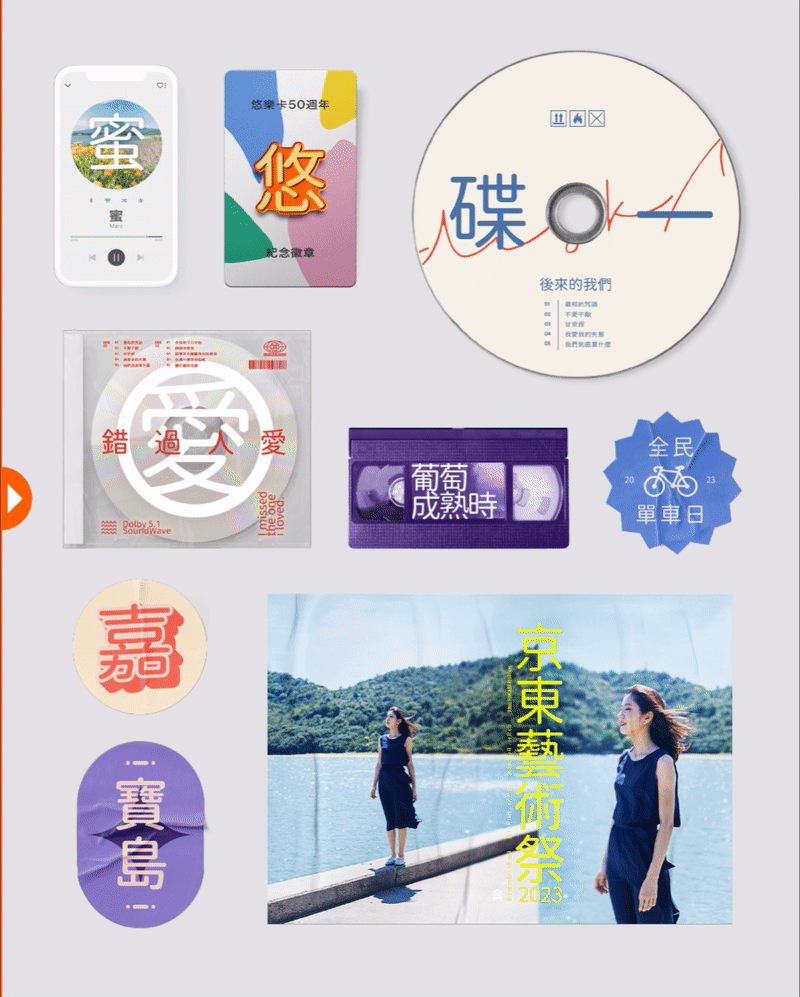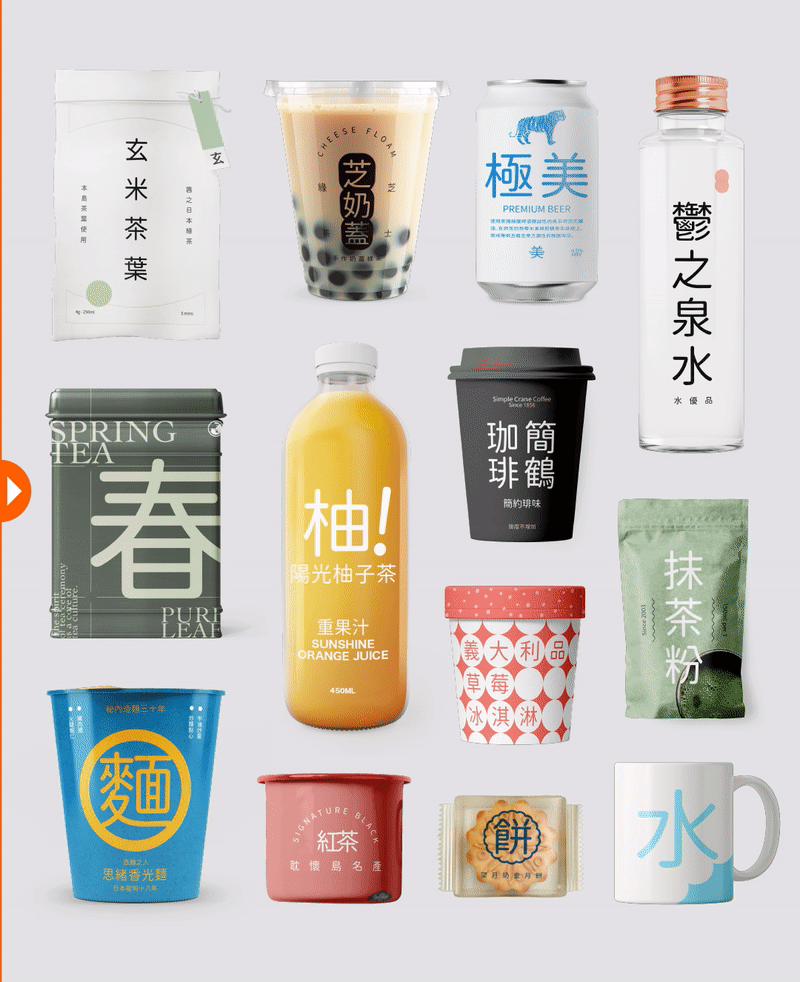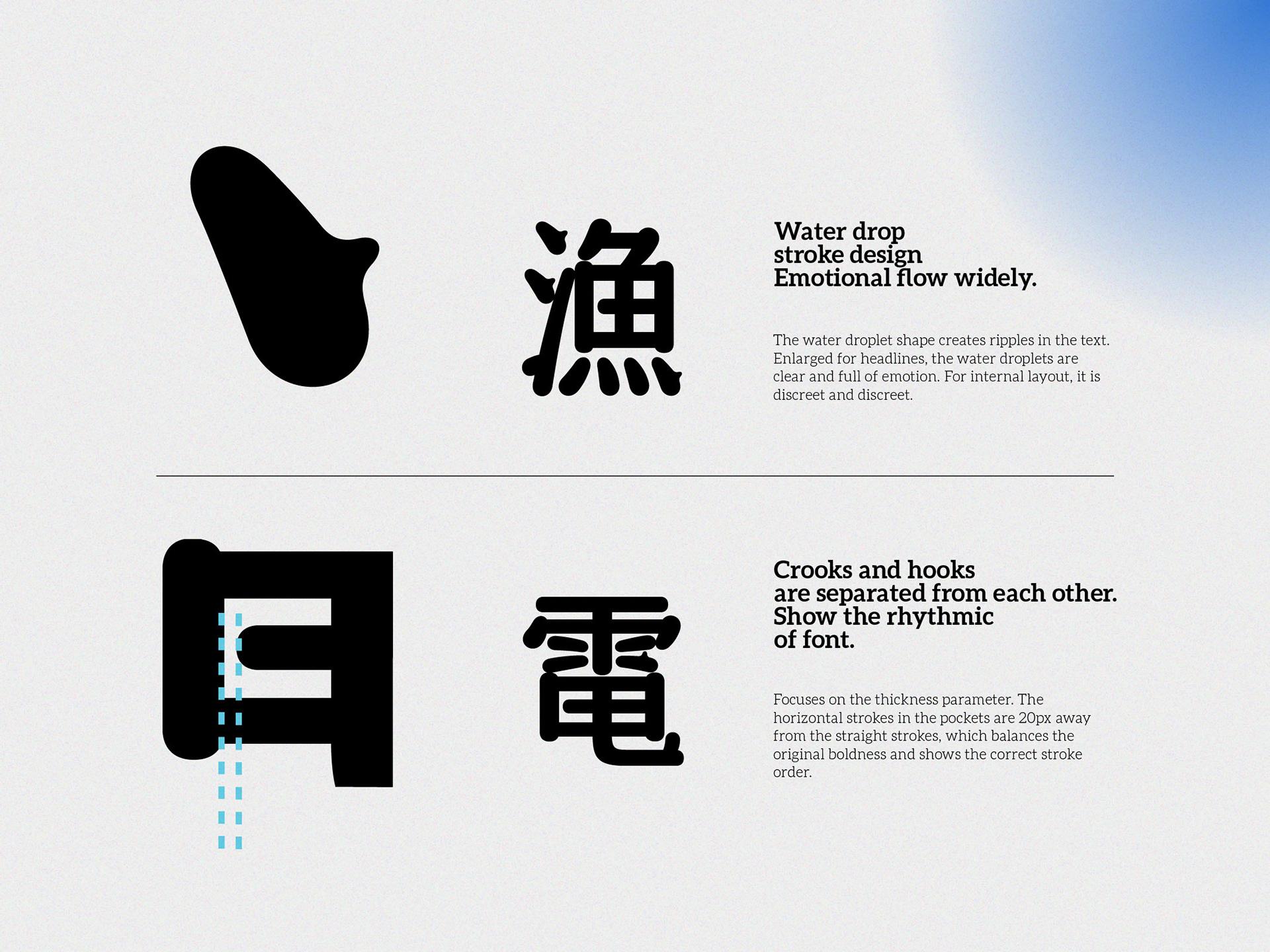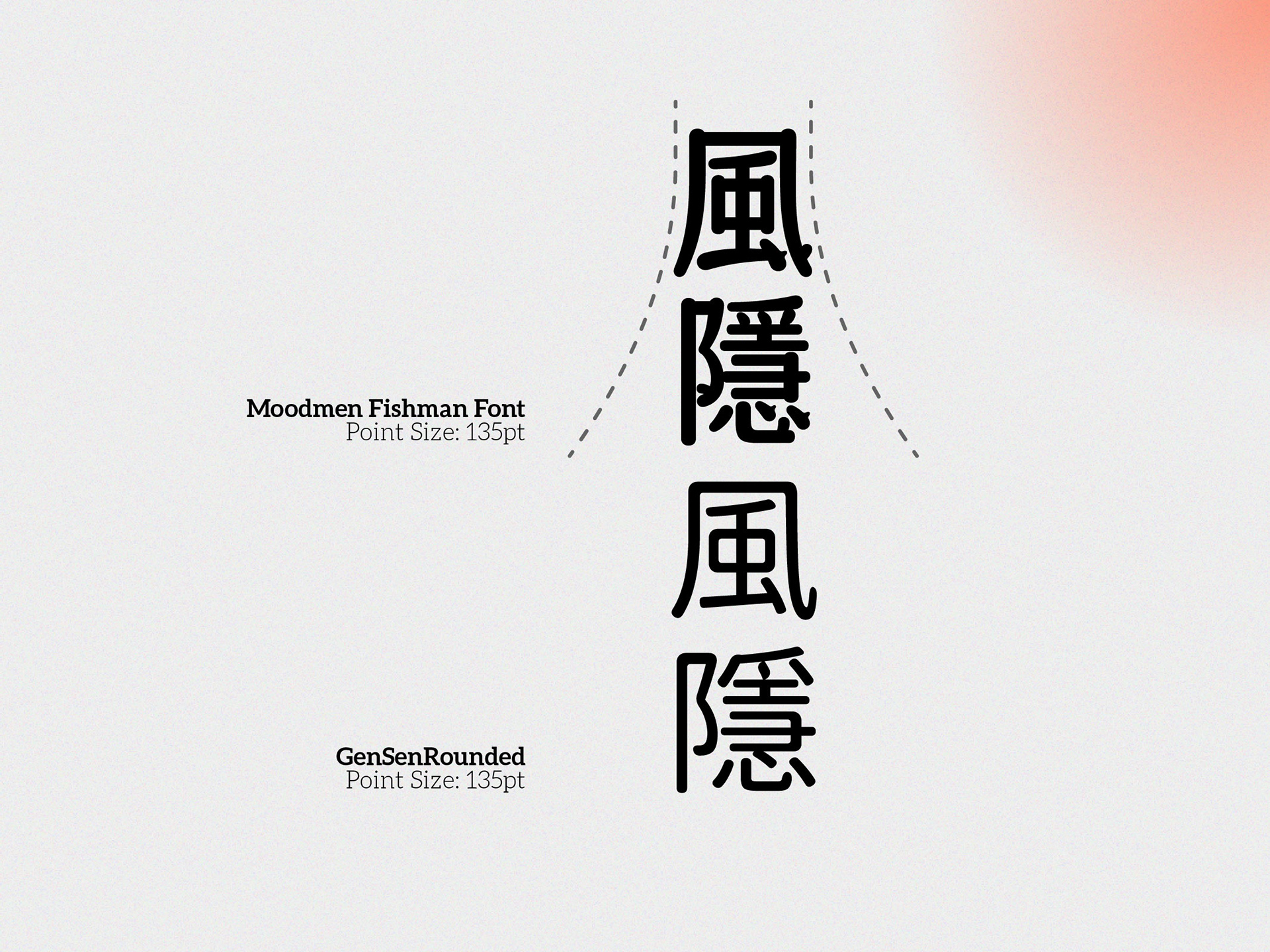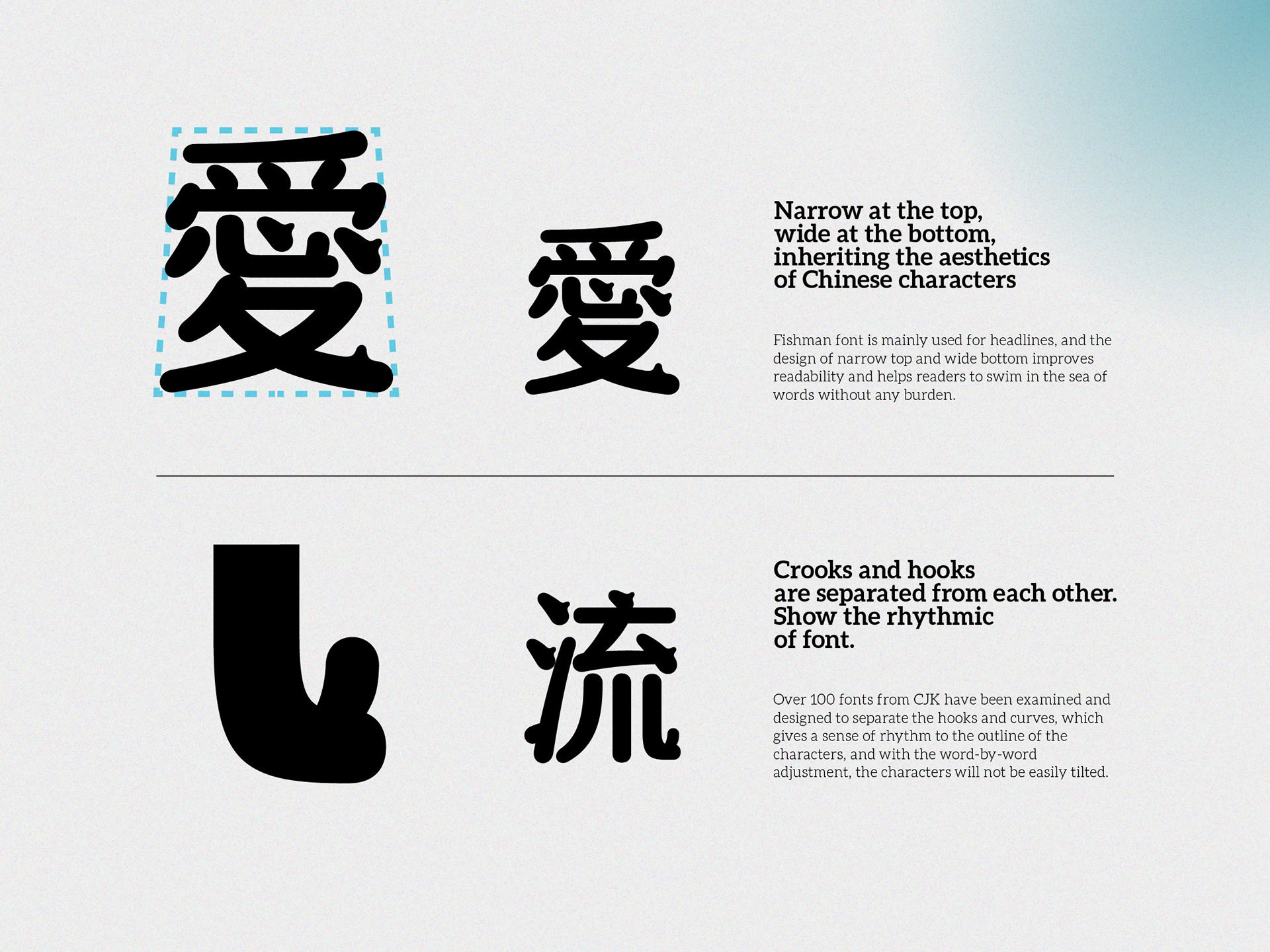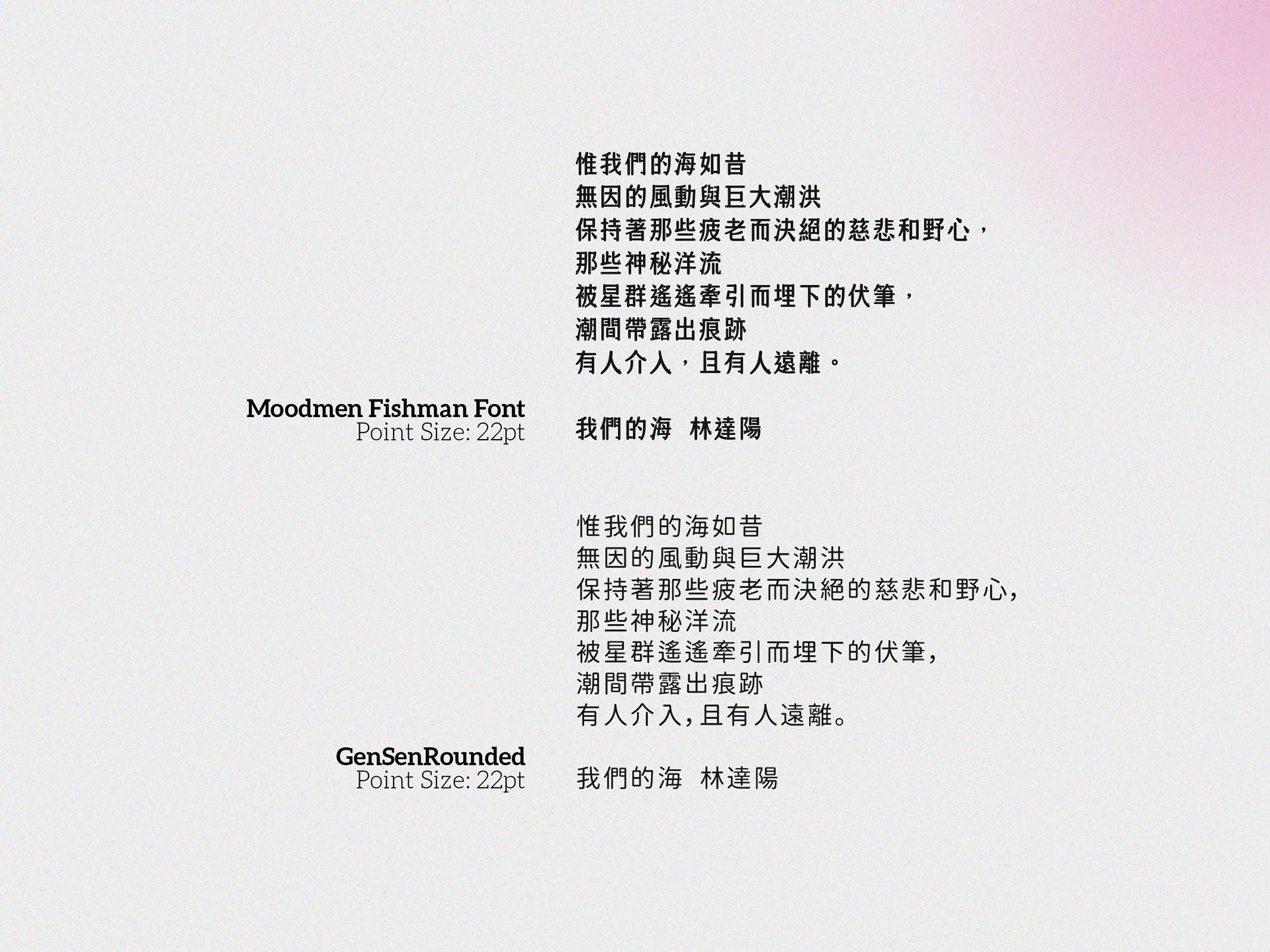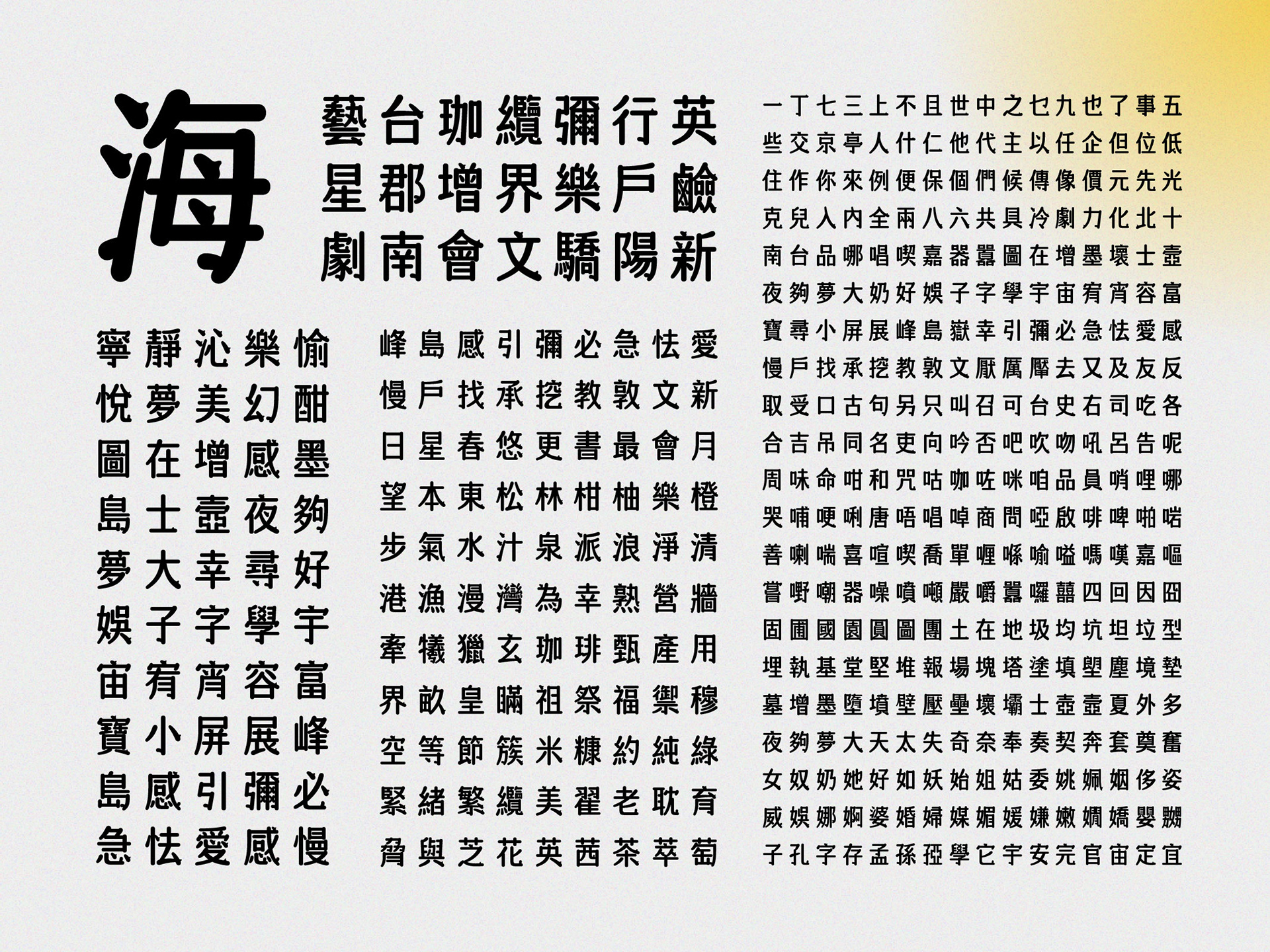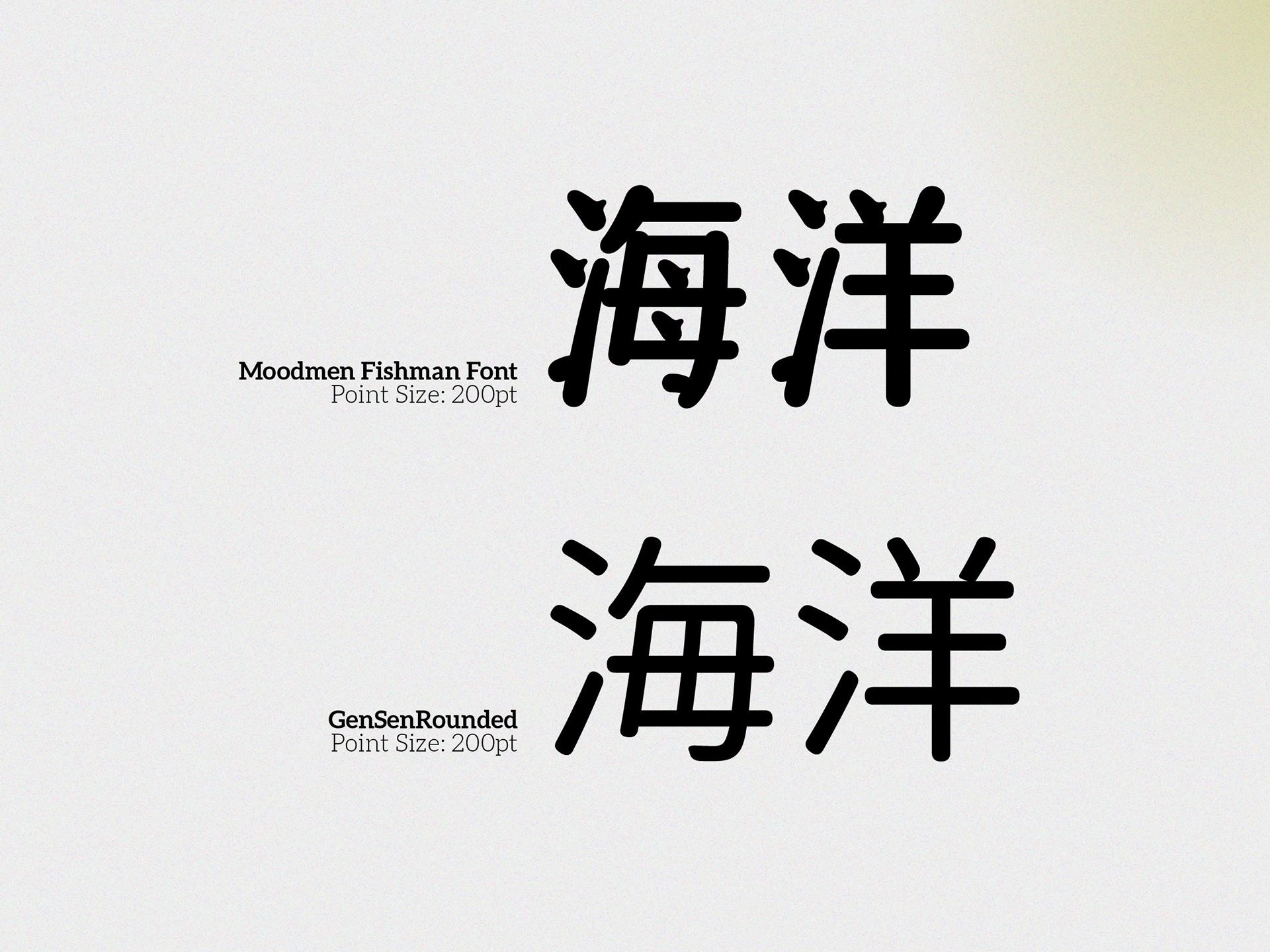
Discover a font design endeavour that draws inspiration from the vital essence of flowing water, infusing designs with dynamic energy and humanistic aesthetics. Embracing the cultural significance of fishing harbours in Hong Kong's history, this project reimagines traditional elements, breathing new life into graphic design possibilities. Explore how "FISHMAN FONT" seamlessly merges the past with the present, reflecting the enduring connection between humanity and the sea.
Vitality distinguishes living beings from inanimate objects, with humans being reliant on water for sustenance. Just as the flow of water sustains life, fonts should imbue designs with the vibrancy inherent in human existence. FISHMAN FONT seeks to infuse font design with vitality by incorporating elements reminiscent of flowing water. Through the use of ellipses to conclude horizontal and straight strokes, the font's lines achieve a balance between rigidity and softness, evoking a dynamic energy within the humanistic aesthetic. This approach injects vitality into the design process, expanding the creative possibilities within graphic design.
Before Hong Kong became a metropolis, it was actually made up of a series of walled villages and fishing villages. It is said that the word "Hong Kong" came from Aberdeen when the port was opened, which shows how important fishermen are to our culture and identity.
Fishing harbours have changed with the times, but they still retain their rustic and charming atmosphere, telling a unique and interesting story of Hong Kong's history.
Looking at Hong Kong from the perspective of its labour force, Hong Kong people have always been accompanied by the sea. Putting drops of water into fonts and replacing history with Yue Wan fonts, we continue to move forward.